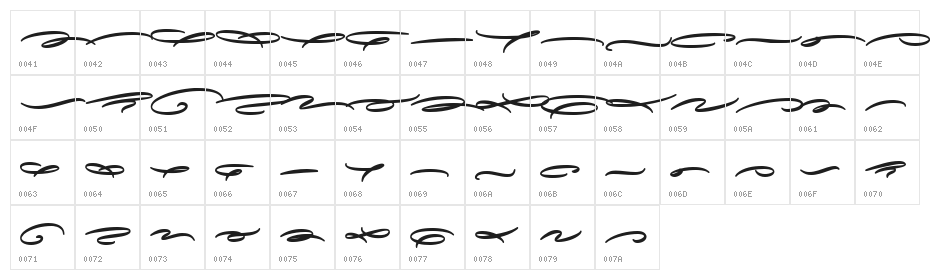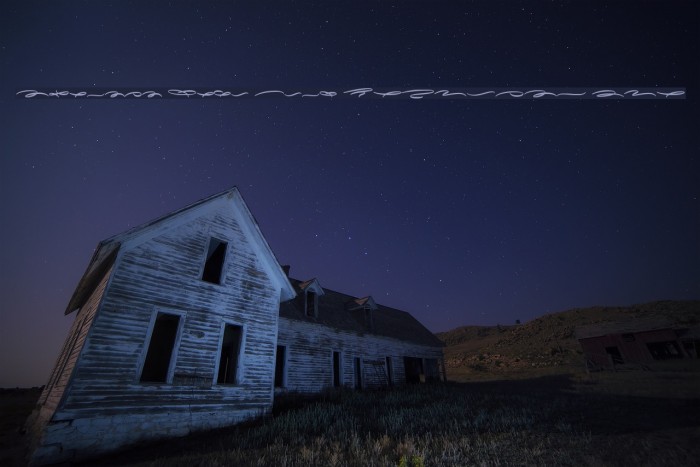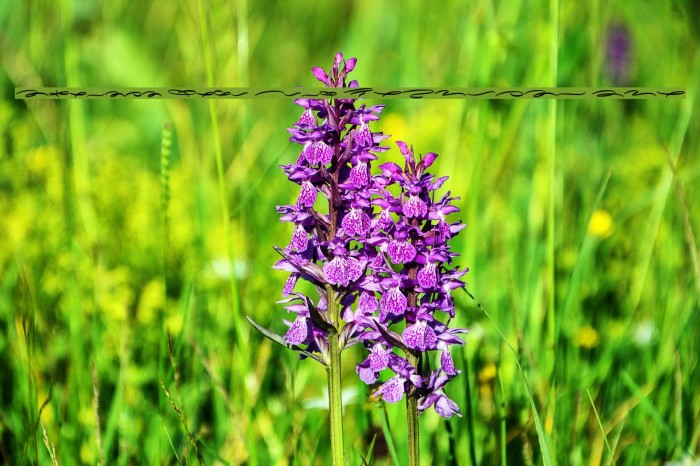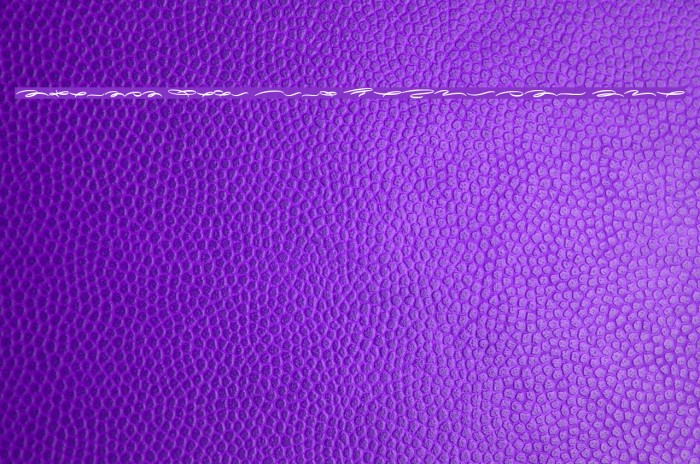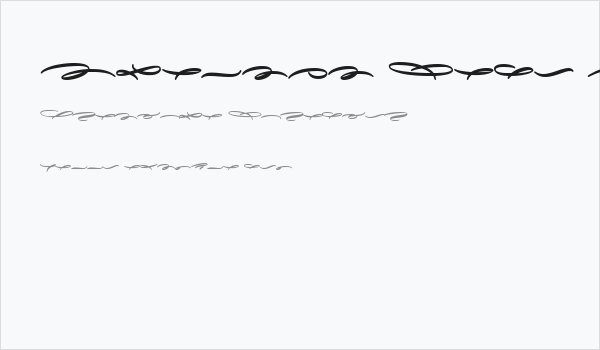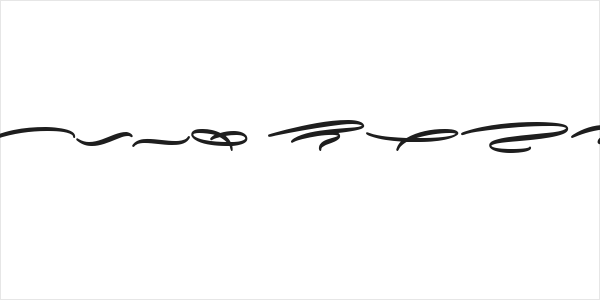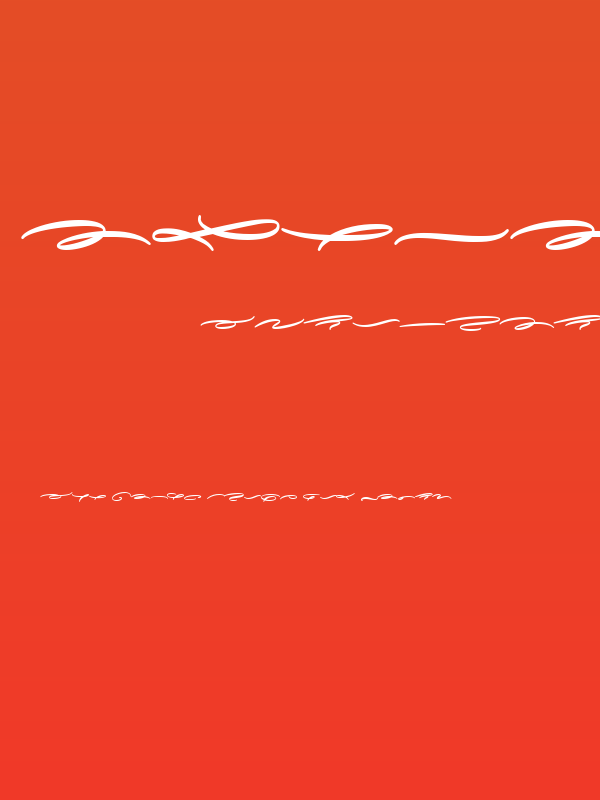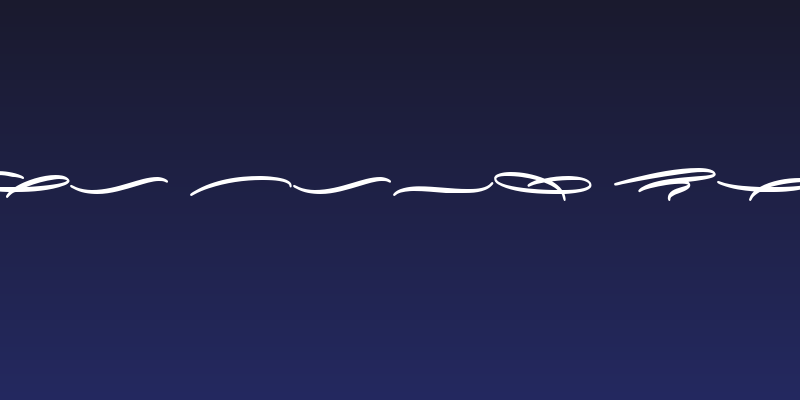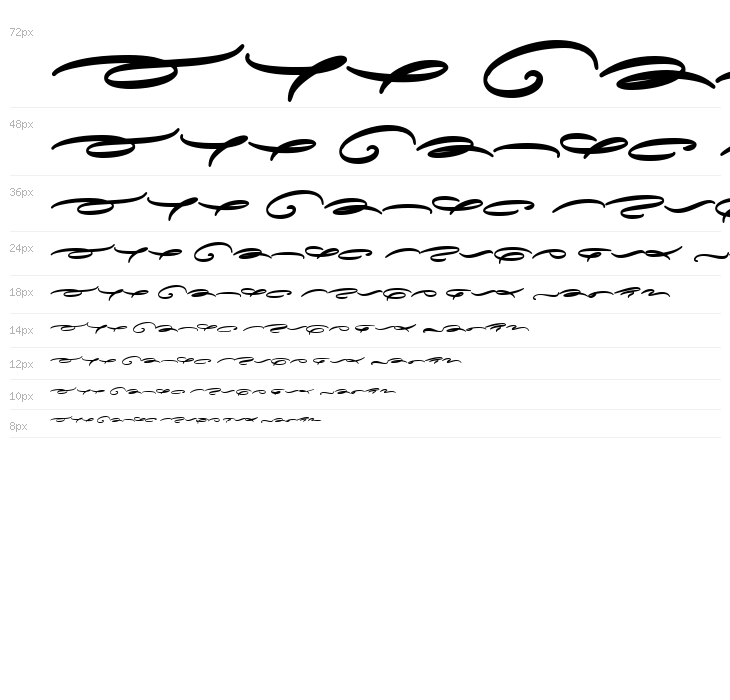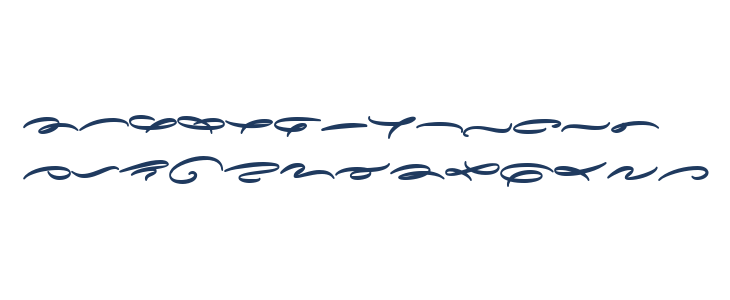
Avelana Deco Bold PERSONAL USE Font
Avelana Deco Bold PERSONAL USE Description
This font is an elegant and decorative script style characterized by its intricate and flowing letterforms. Each character is adorned with elaborate swirls and flourishes, creating a sense of sophistication and artistry. The font maintains a consistent stroke width, giving it a bold appearance while retaining its delicate and ornate nature. The spacing between characters is tight, enhancing the interconnectedness of the design. This font is ideal for projects that require a touch of elegance and creativity, such as wedding invitations, luxury branding, and artistic posters.
| Proposed Projects | Wedding invitations, luxury branding, artistic posters, greeting cards. |